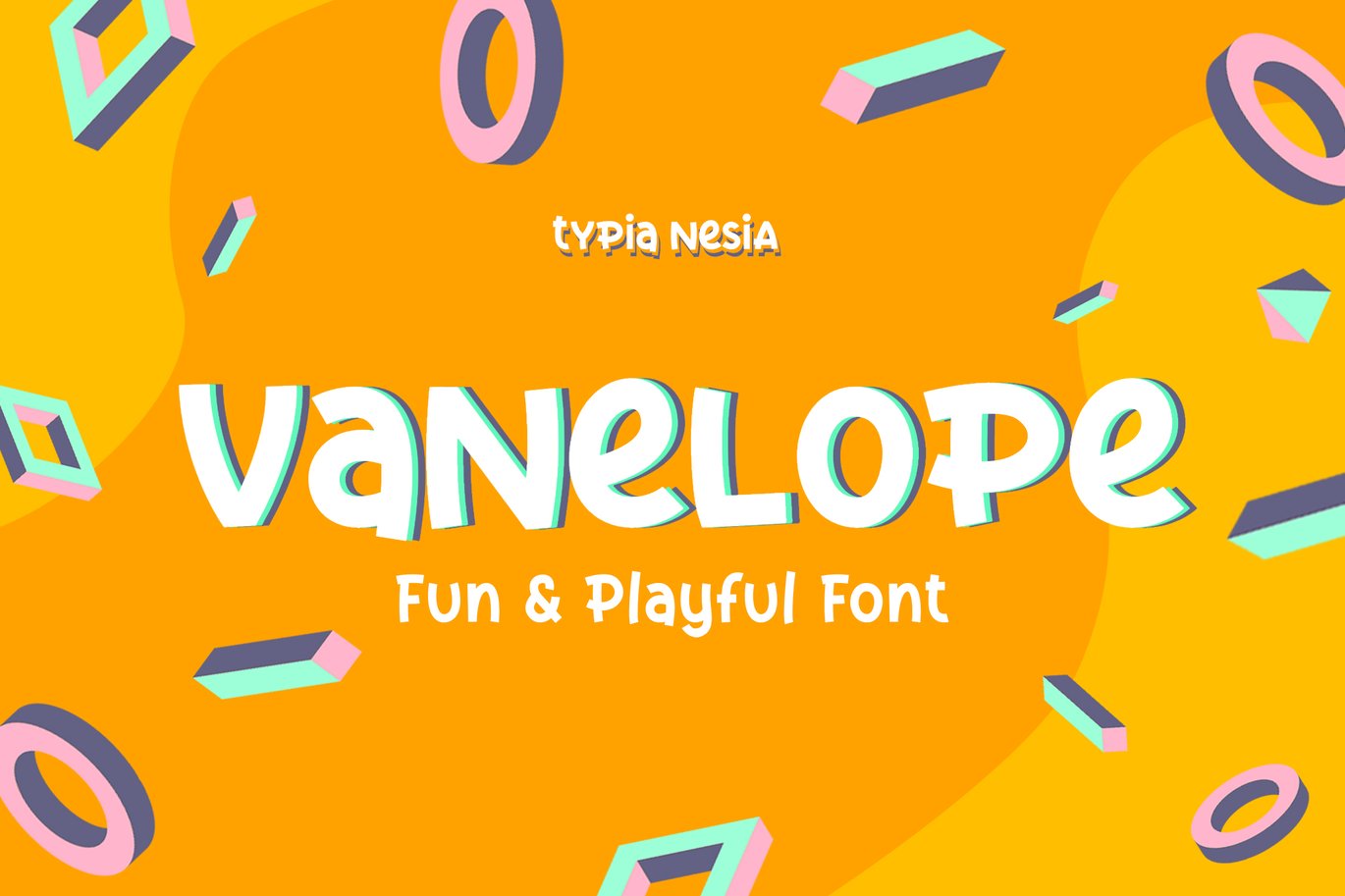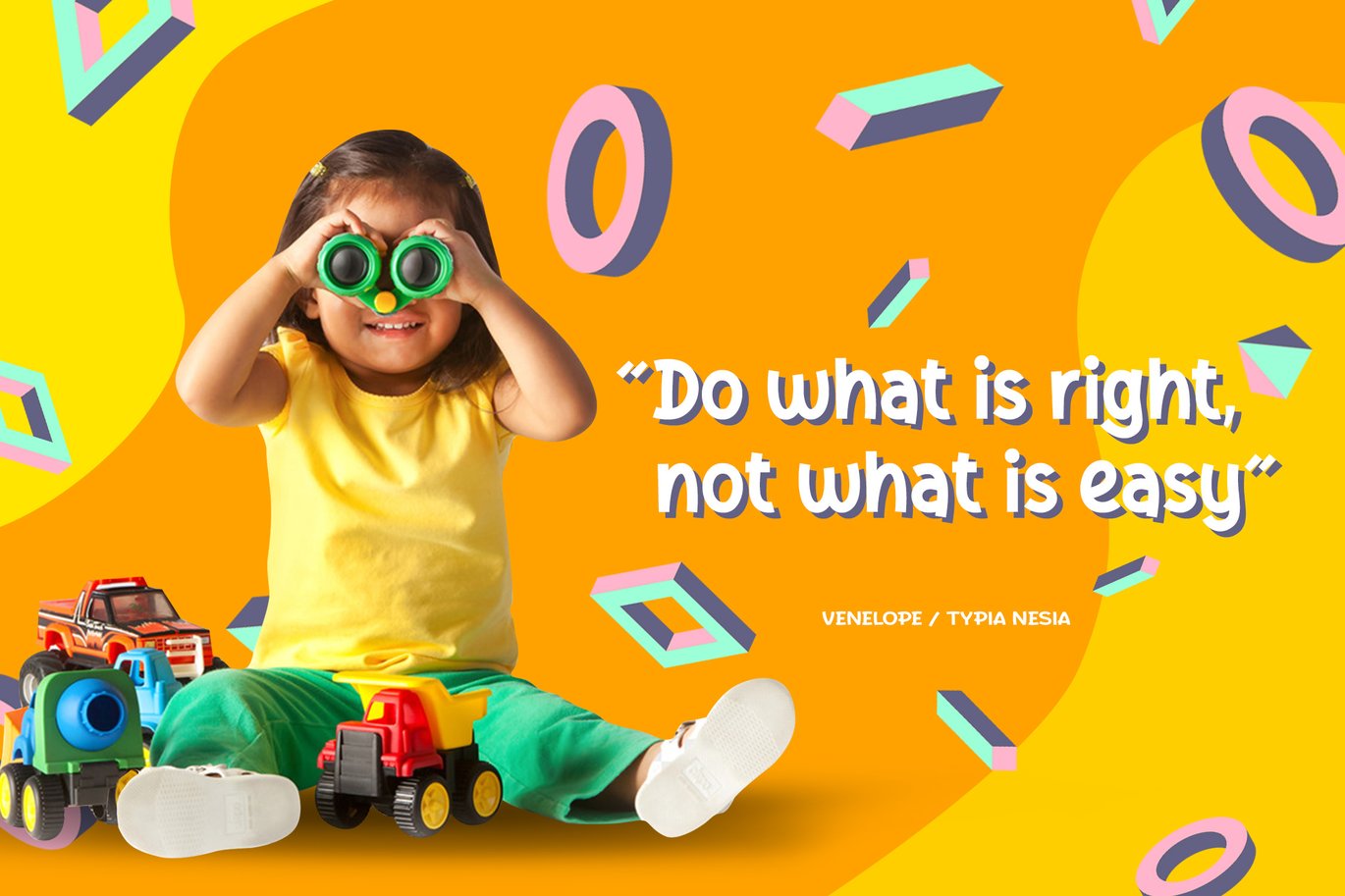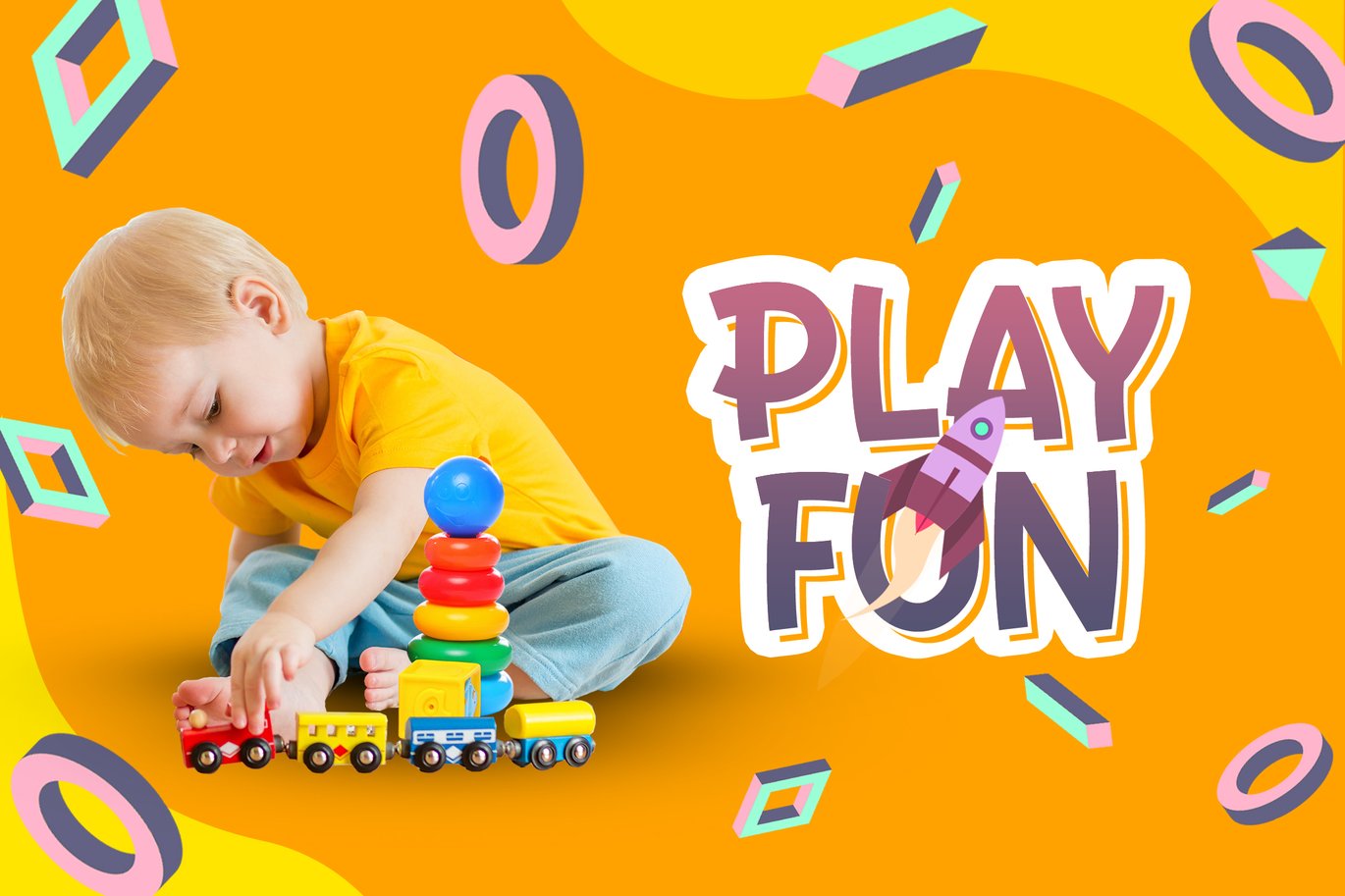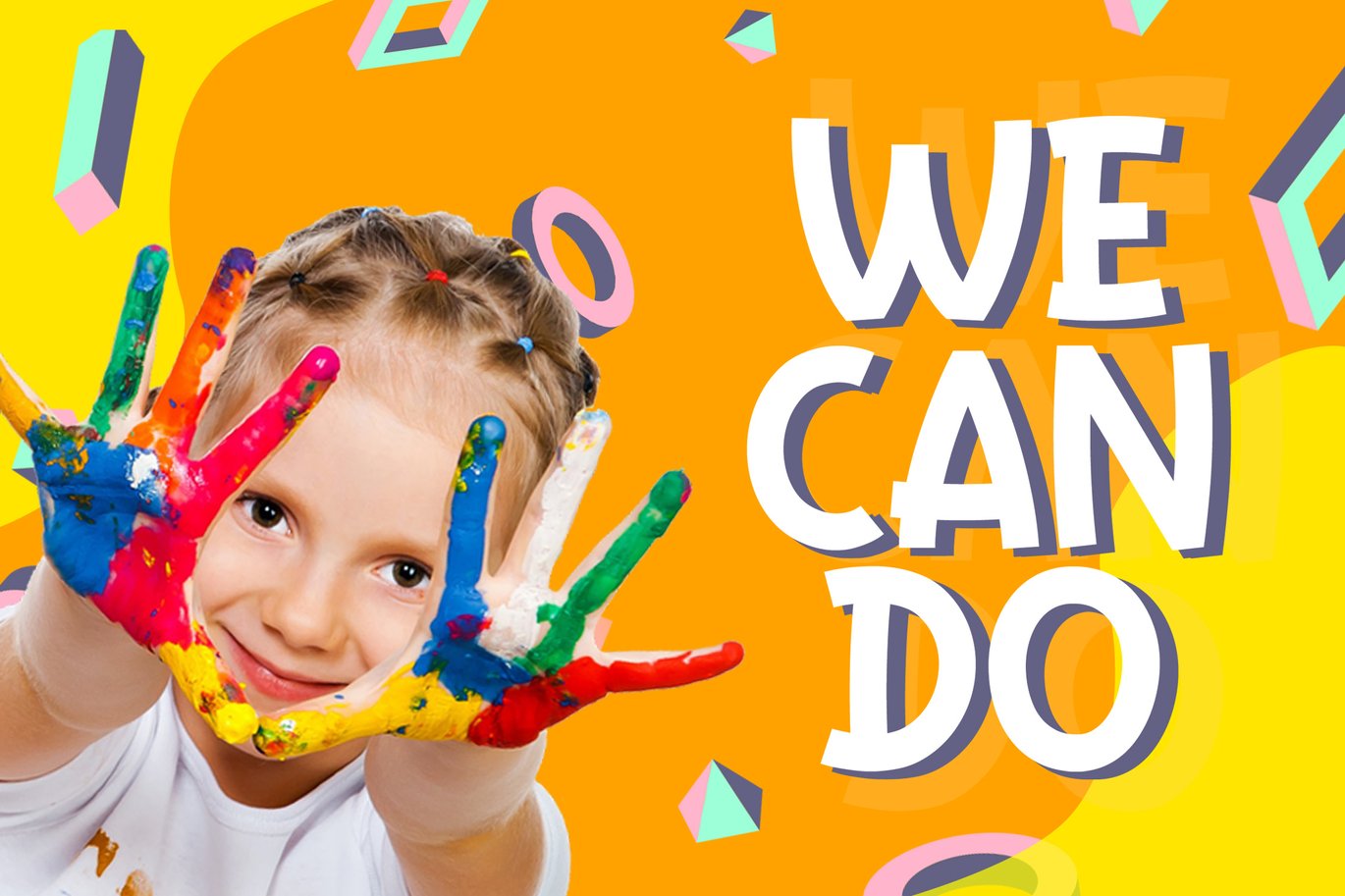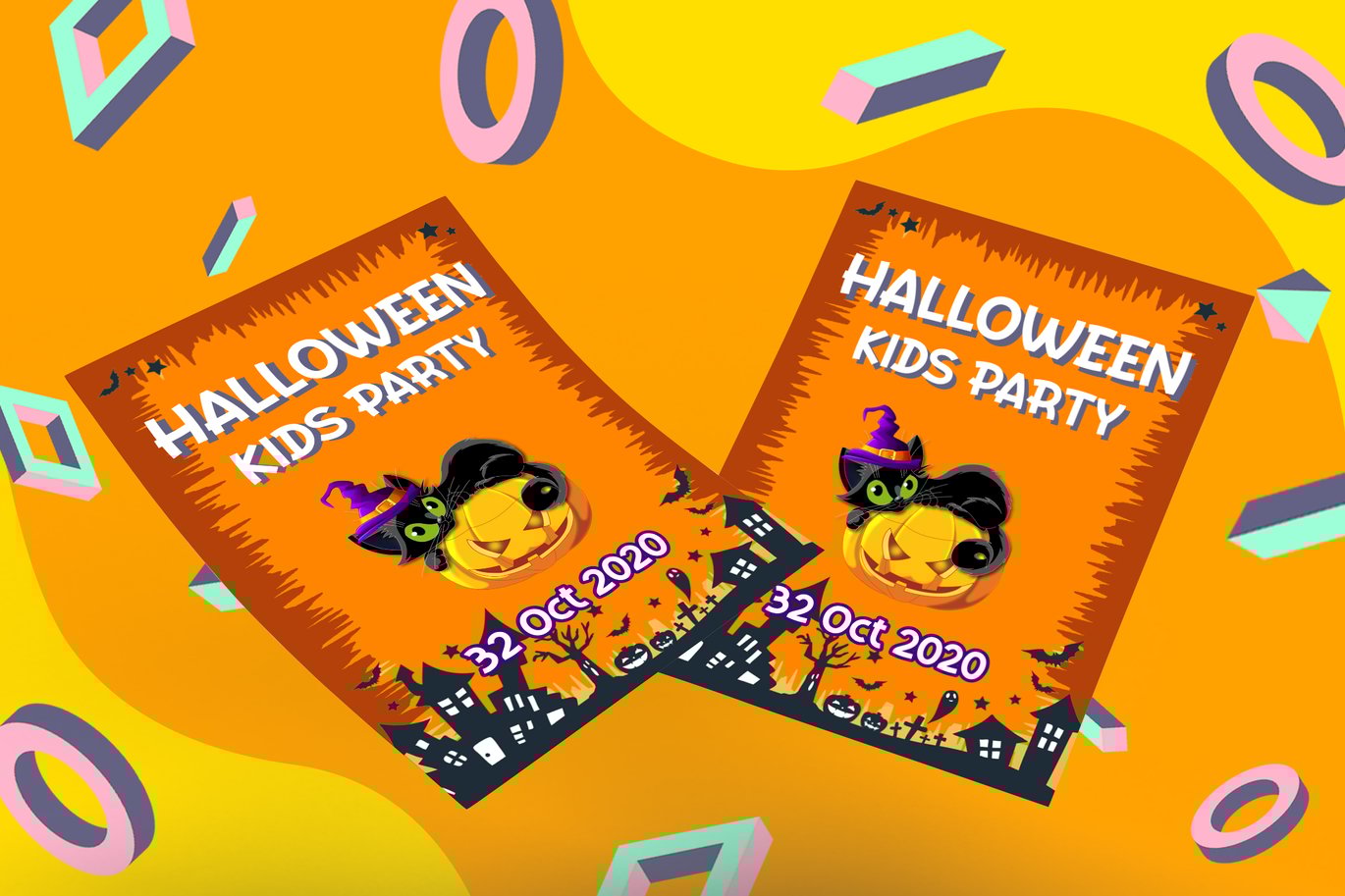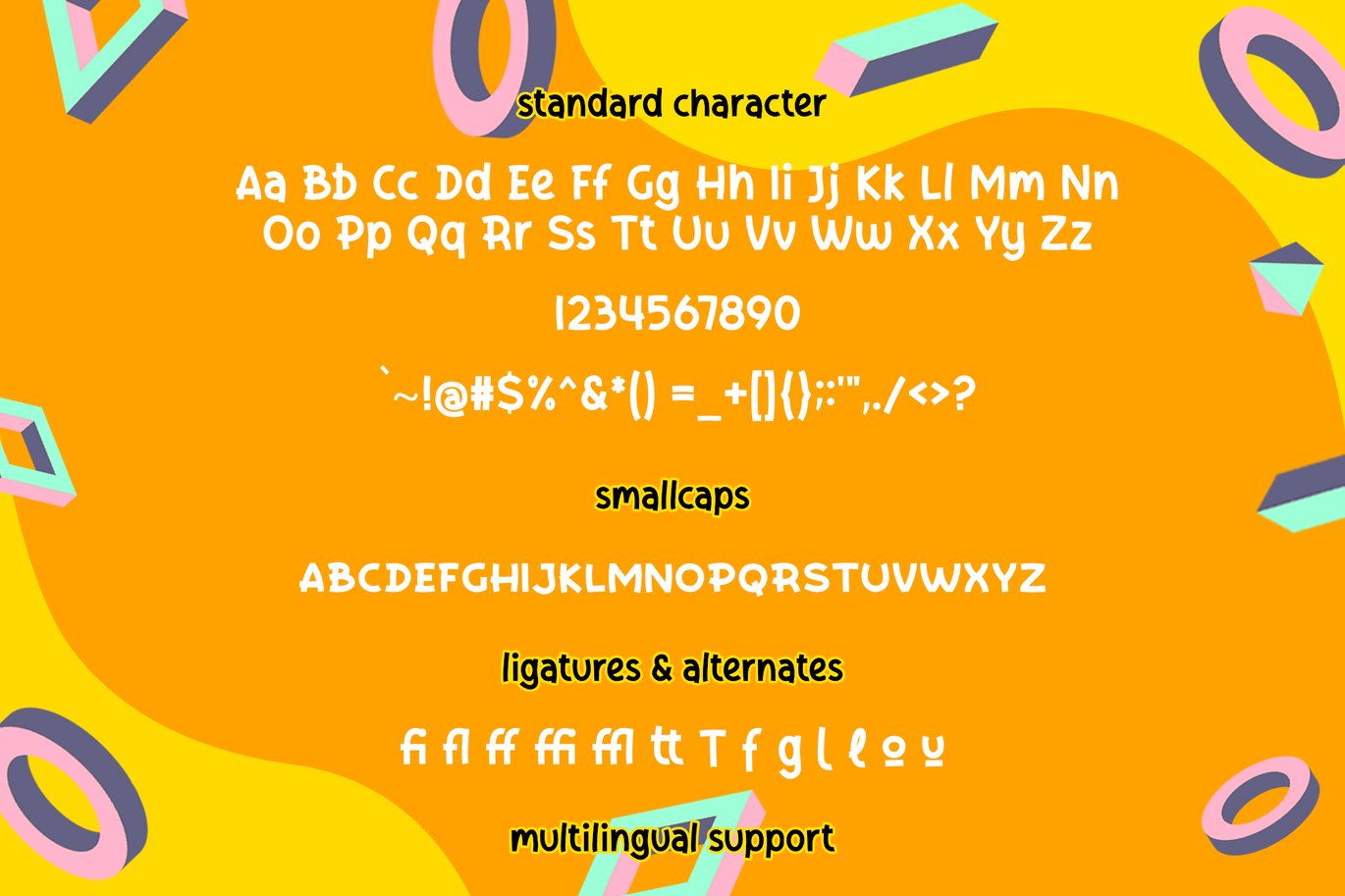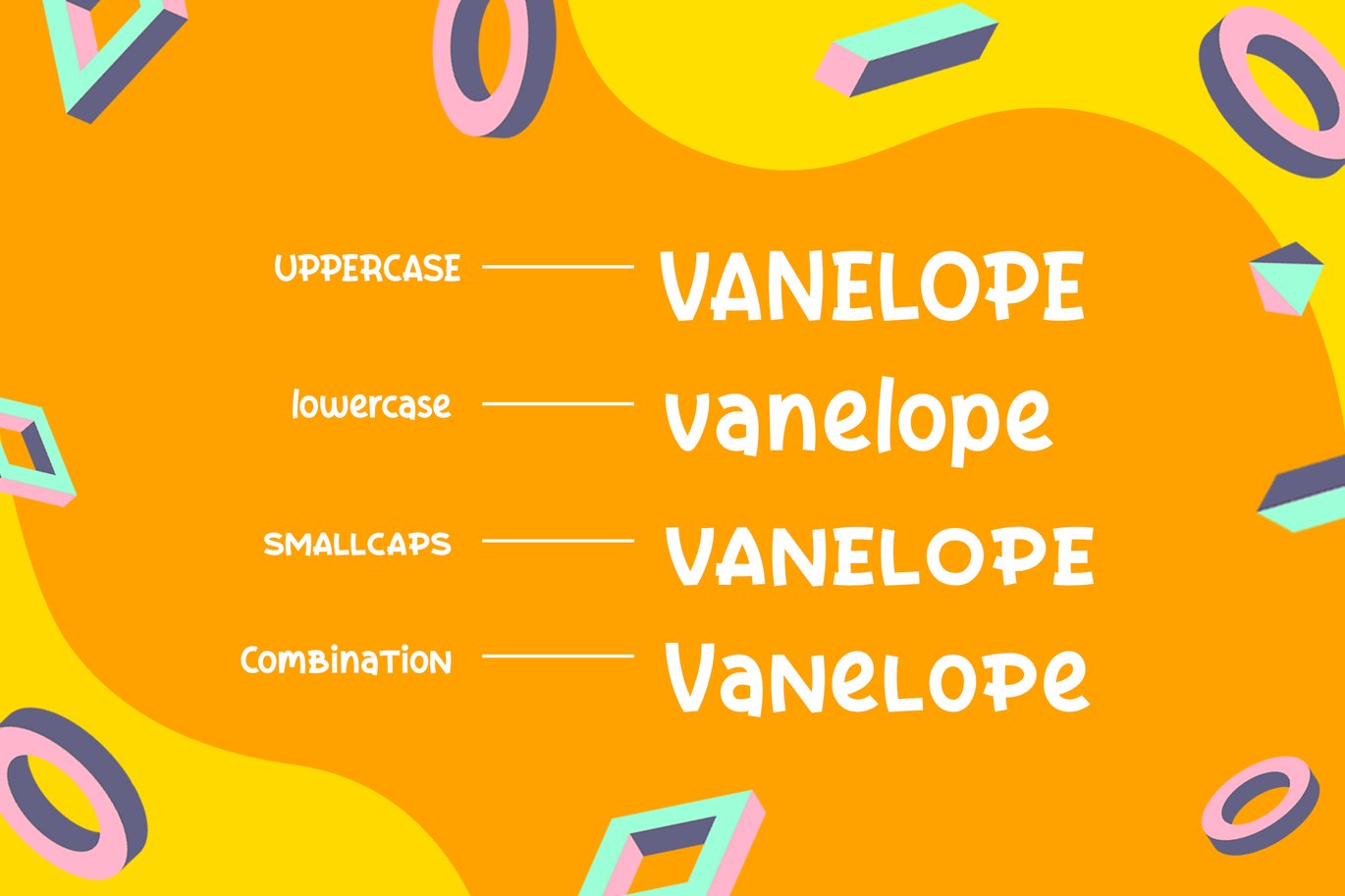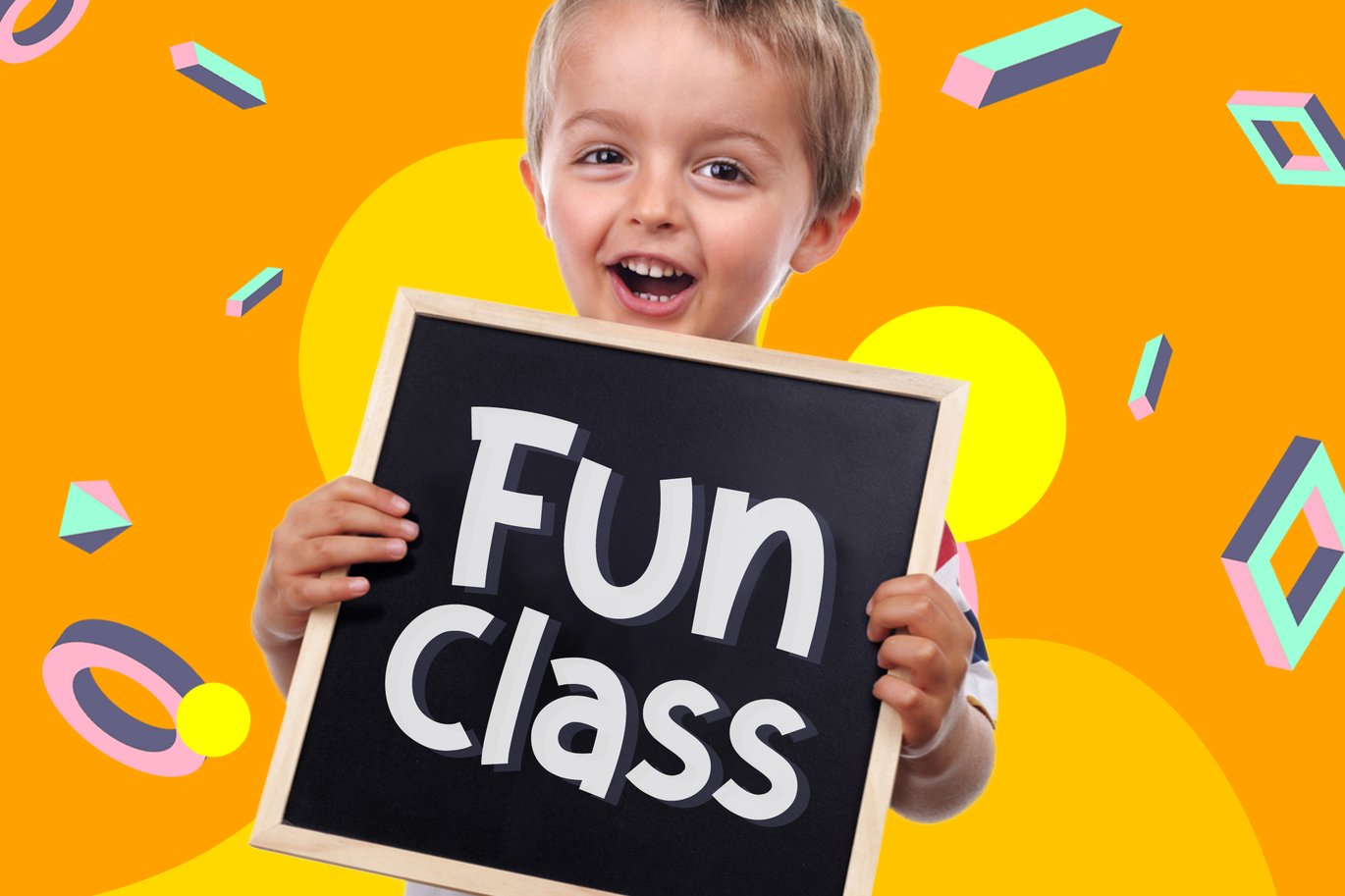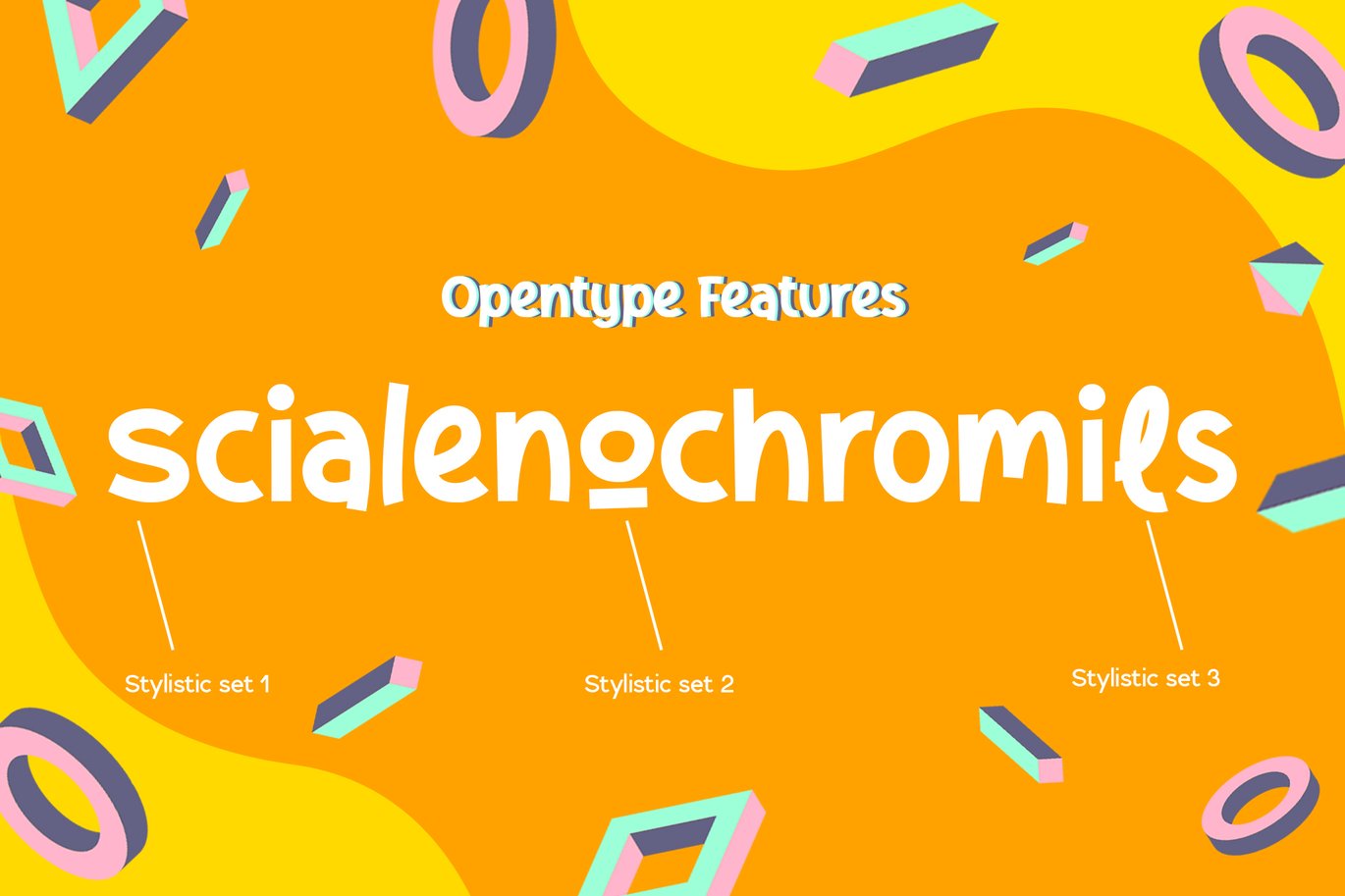
Vanelope – Fun Playful Font
Vanelope – kiddy funny fancy cartoon Fun Playful Font
Suitable for any design needs : logo, branding, modern advertising design, cartoon, animation, kid book, logos, poster quote, book / cover Title, editorial design, website / blog, card, custom mug, pillow, t-shirts, and any hand-lettered needs.
- Vanelope (.ttf + .otf) comes with upper and lowercase Standard Characters, Punctuation, Numerals. And other Glyphs variation of the OpenType features such as Smallcaps, Standard Ligature, and Stylistic Alternate.
- Includes a range of multilingual characters.